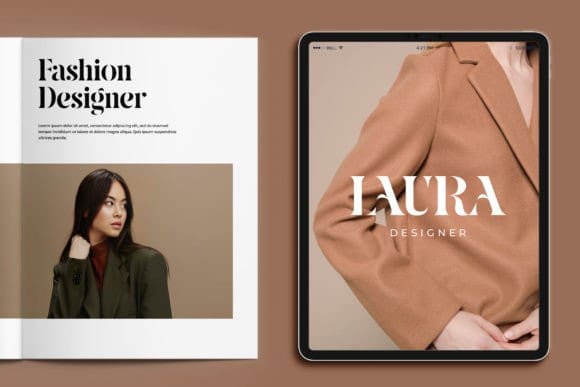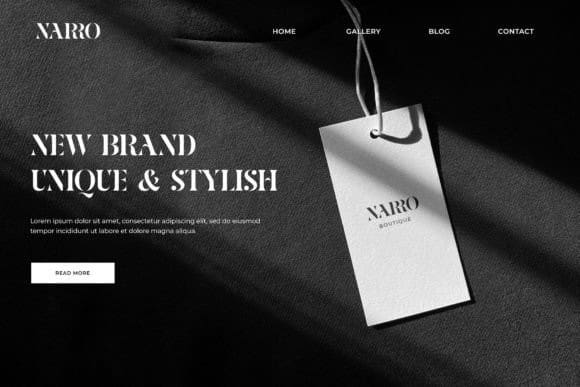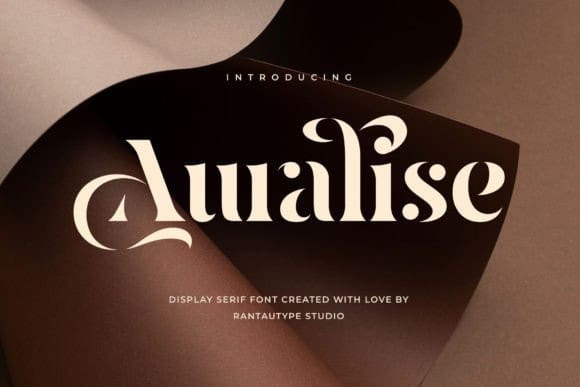
Auralise Font
Auralise Font is an elegant serif font, that features a very delicate and classy look. Not too thin and not too thick, balanced and varied, Florania was designed to enhance the beauty of your projects.